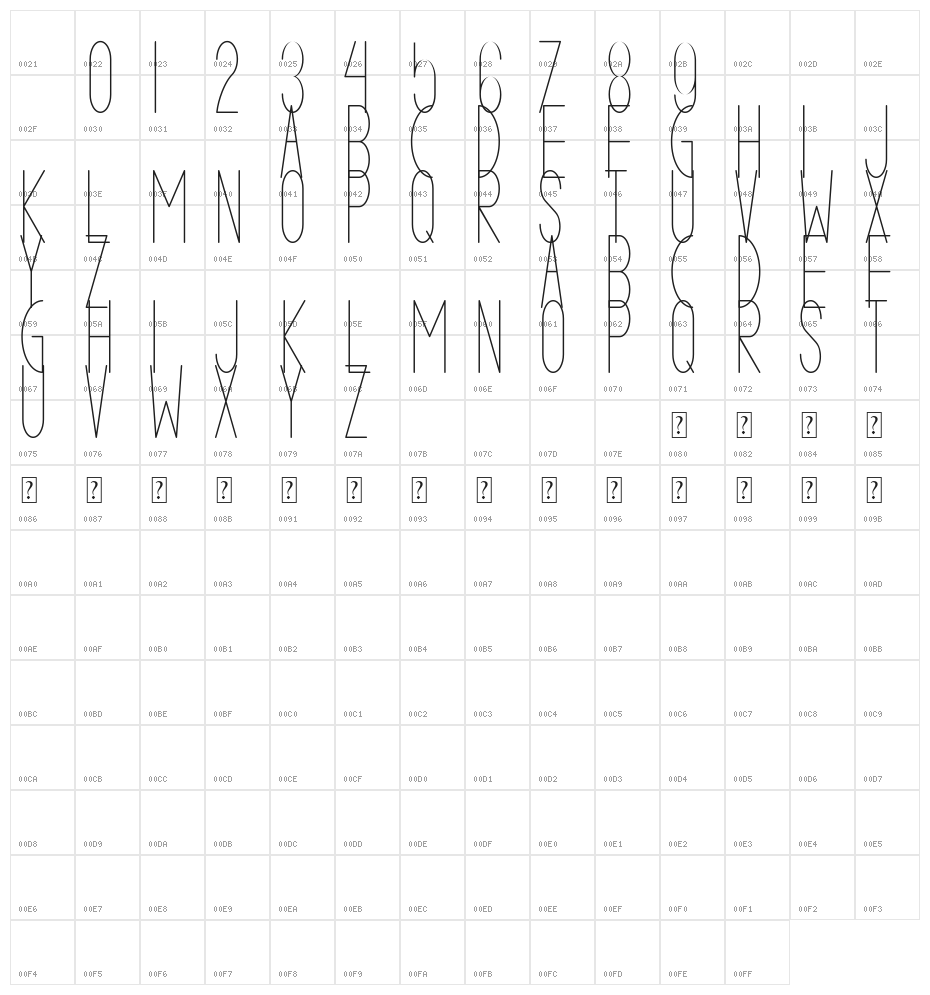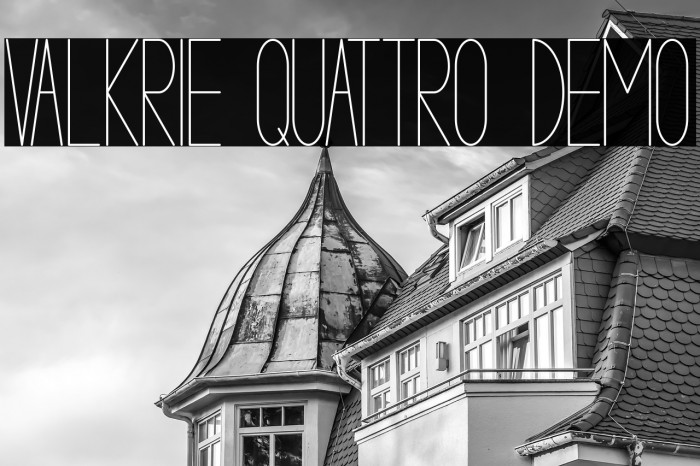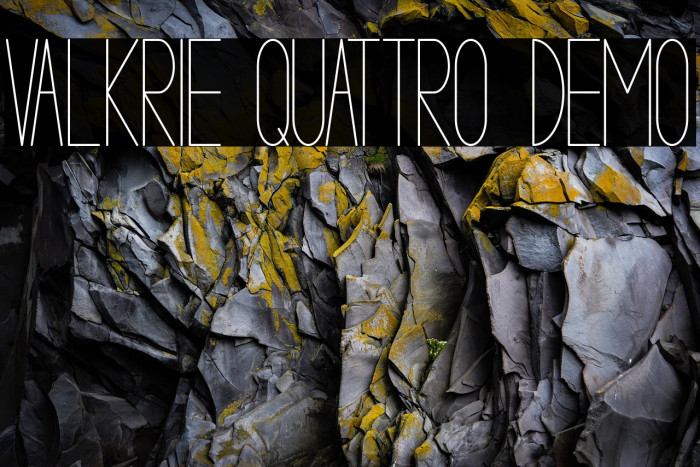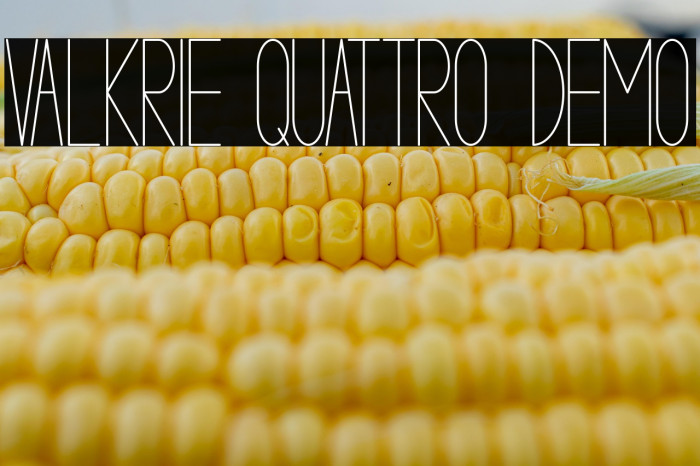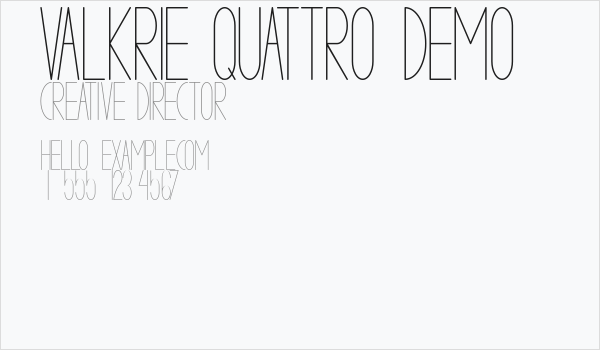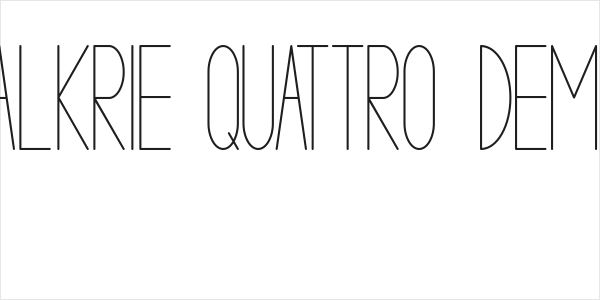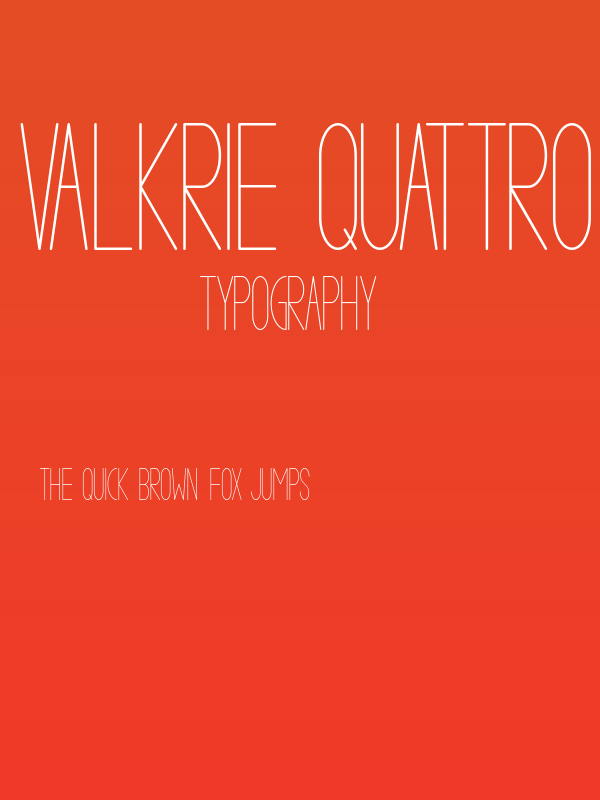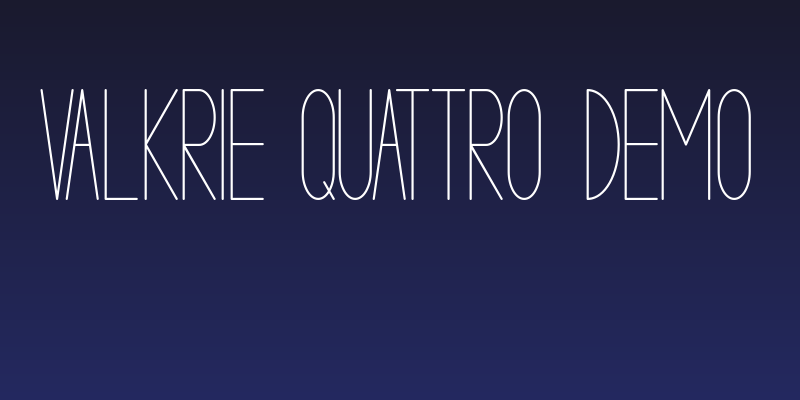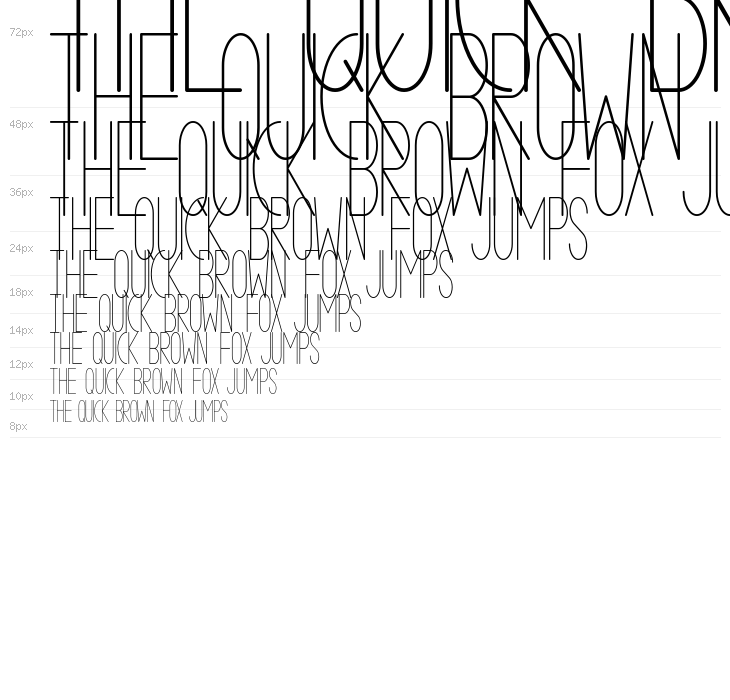
VALKRIE QUATTRO demo Font
VALKRIE QUATTRO demo Description
This font features a modern and minimalist design with tall, narrow letterforms. The characters are constructed with thin, consistent strokes, giving it an elegant and sophisticated appearance. The uppercase and lowercase letters maintain a uniform height, creating a cohesive look. The numerals are designed to match the overall style, with a sleek and streamlined appearance. Special characters are included, maintaining the same thin stroke and modern aesthetic. This font is ideal for projects that require a clean and contemporary look.
| Proposed Projects | Ideal for branding, editorial design, fashion magazines, and luxury product packaging. |